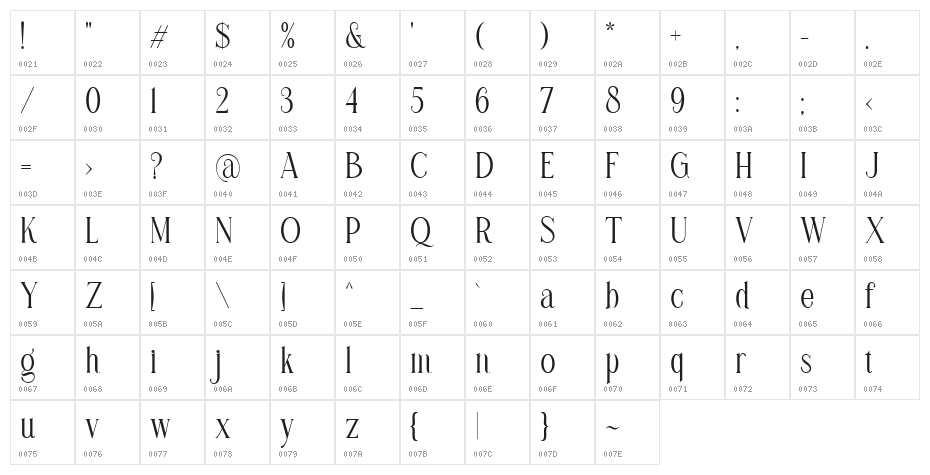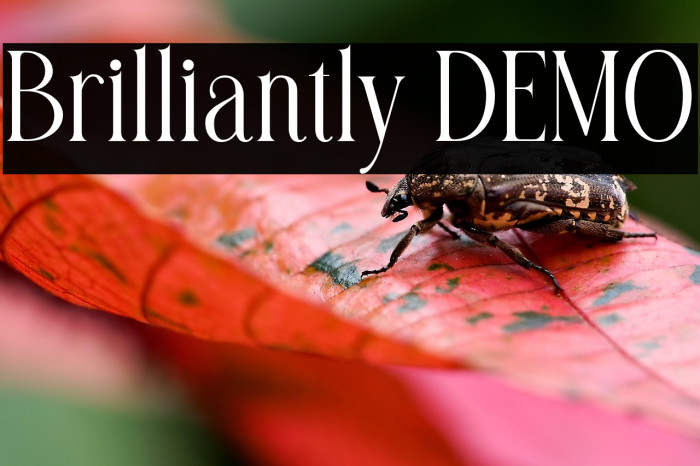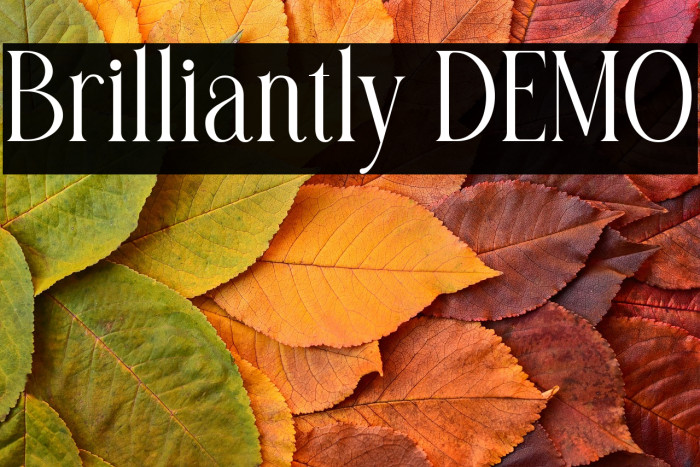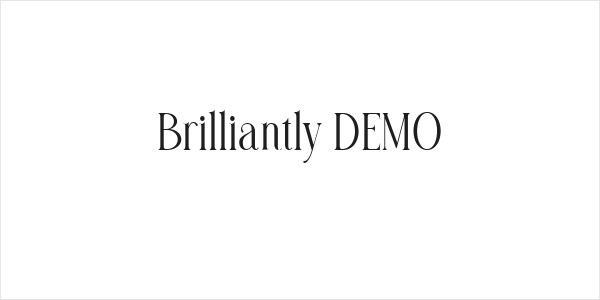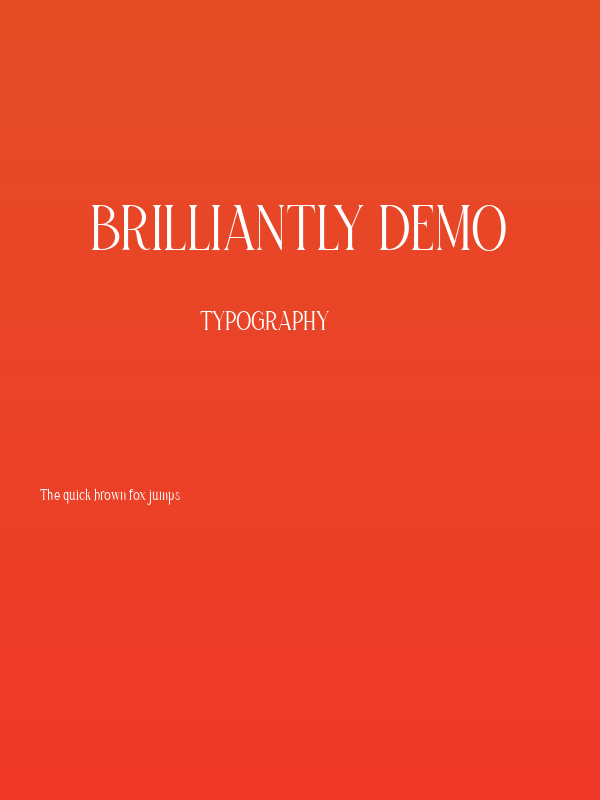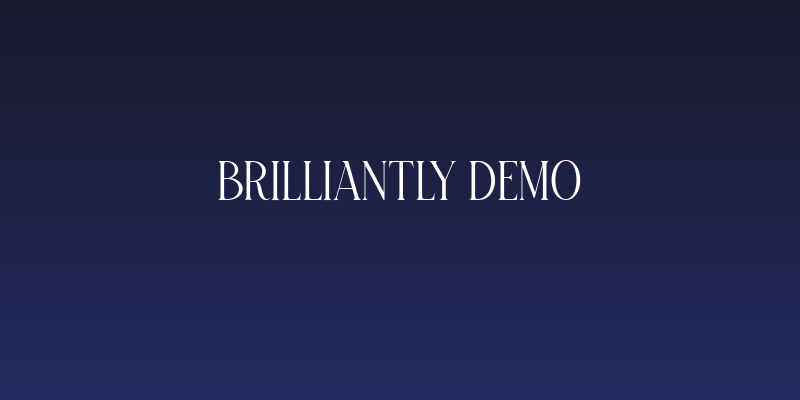
Brilliantly DEMO Font
Brilliantly DEMO Description
This font features a sophisticated and elegant design, characterized by its high contrast between thick and thin strokes. The serif style adds a touch of classic refinement, while the elongated curves and sharp edges provide a modern twist. The uppercase letters are tall and commanding, while the lowercase letters maintain a graceful flow. Numbers are clear and distinct, ensuring readability. Special characters are crafted with the same attention to detail, making them suitable for various design needs. The overall appearance is both stylish and versatile, ideal for projects that require a touch of elegance and professionalism.
| Use Case | Headlines, Logos, Editorial design |
| Proposed Projects | Ideal for luxury branding, editorial design, wedding invitations, and high-end product packaging. |